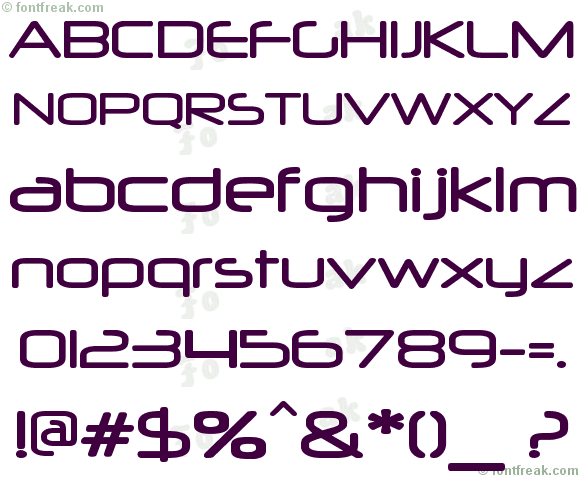
Neuropol
Neuropol, designed by Ray Larabie in 2000 and updated in 2004, is a striking sans-serif font that embodies a futuristic aesthetic. With its clean lines and distinctive geometric shapes, this font features a medium stroke weight, offering a balanced contrast that is both modern and approachable. The letterforms are spaciously designed, allowing for excellent readability, making it suitable for a variety of applications. Neuropol's unique style is characterized by rounded edges and a minimalist approach, which gives it a contemporary feel, perfect for capturing attention.
This font is ideal for various creative projects. It works exceptionally well in movie posters, where a bold and futuristic look can enhance the visual impact. Additionally, Neuropol is suitable for tech-related branding or product packaging, as it conveys innovation and modernity. Graphic designers can utilize it for website headers and digital marketing materials to create a cohesive and appealing visual identity. Small business owners will find this font useful in designing eye-catching promotional materials, such as flyers or business cards, that stand out in a crowded market. Furthermore, content creators can leverage Neuropol in video graphics, giving their content a polished and professional appearance.
What sets Neuropol apart is its ability to blend functionality with a distinctive style, making it a go-to choice for those in need of a modern sans-serif font that stands out, captures attention, and elevates design across various mediums.